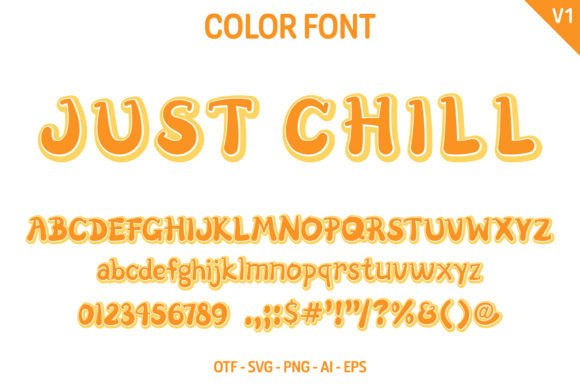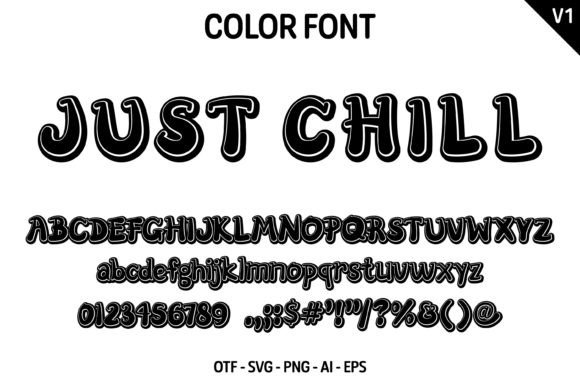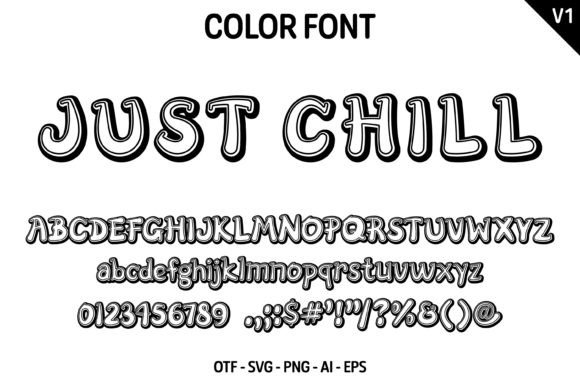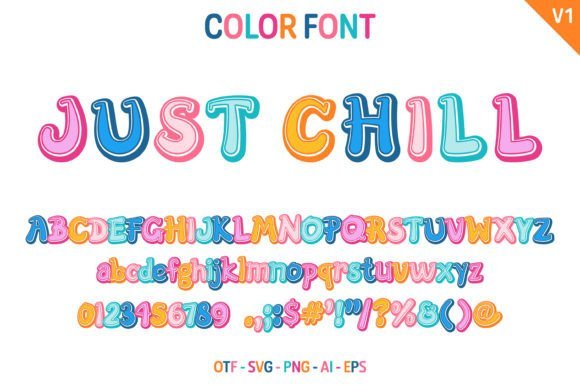
Introduction to Just Chill  Font
Just Chill is a relaxed and casual font that embodies a laid-back and carefree vibe.
The rounded edges and fluid strokes give the letters a smooth and flowing appearance This font would be perfect for designs that aim to convey a sense of relaxation, such as vacation-themed graphics, spa advertisements, or leisure-oriented products.
Key Features of Just Chill  Font